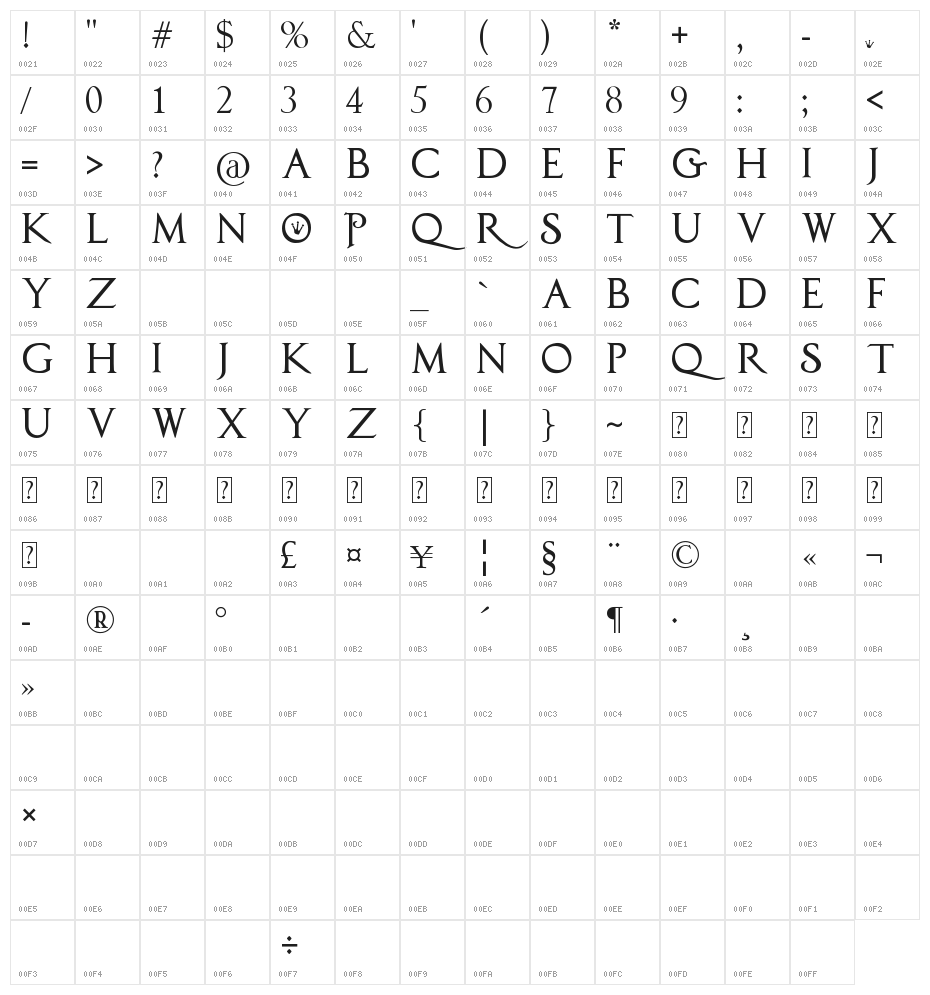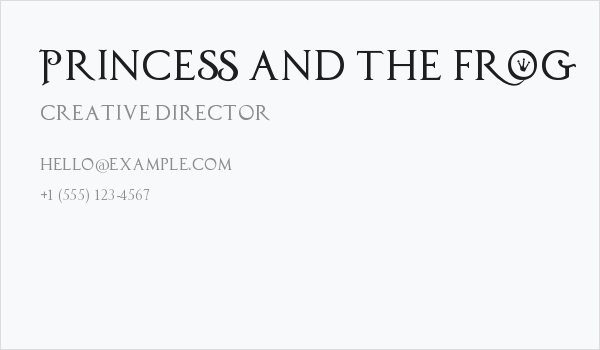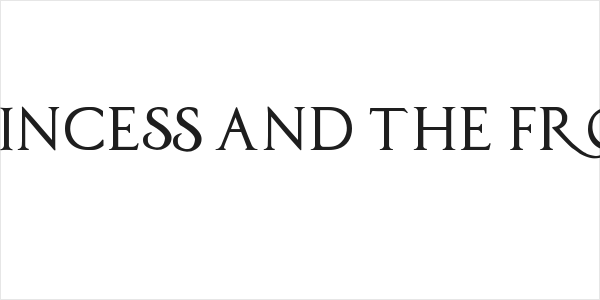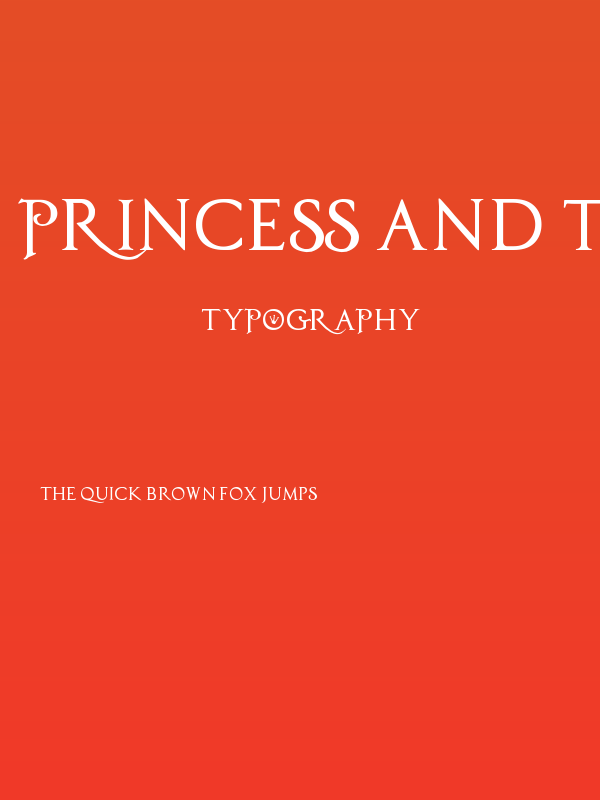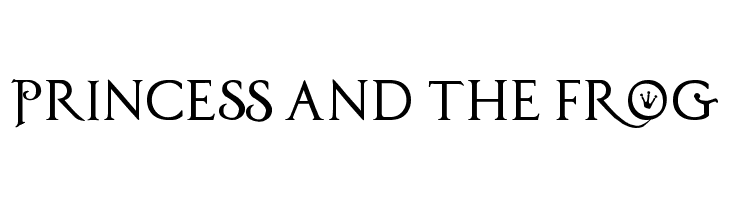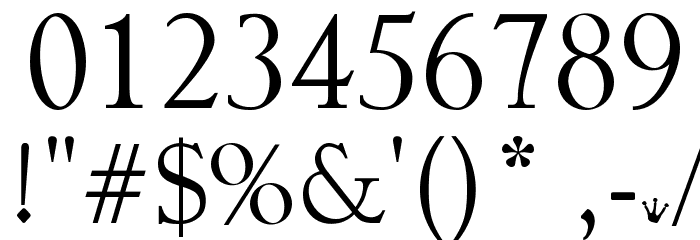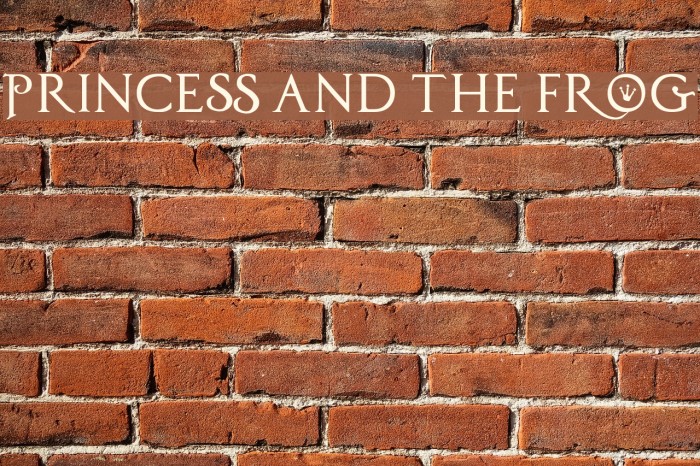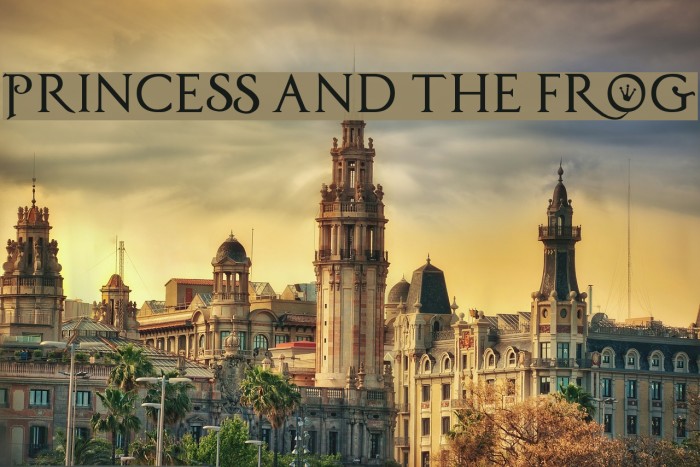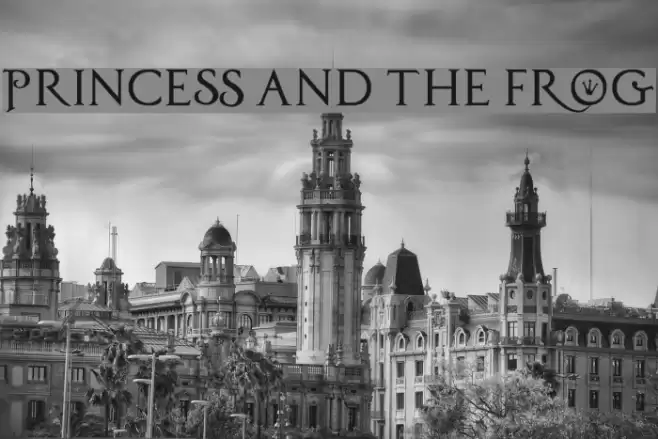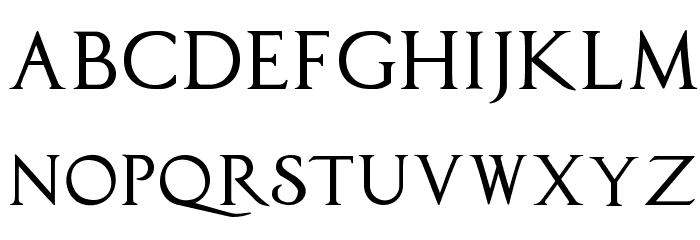
PrincesS AND THE FROG Font
PrincesS AND THE FROG Description
This font features a classic serif style with elegant and sophisticated letterforms. The uppercase letters are characterized by their sharp serifs and balanced proportions, giving a sense of tradition and formality. The lowercase letters maintain a consistent style, with smooth curves and a refined appearance. The numerals are clear and legible, matching the overall aesthetic of the typeface. Special characters are thoughtfully designed, integrating seamlessly with the rest of the font. The unique swashes on certain letters add a touch of flair, making it suitable for decorative purposes.
| Categories | Serif |
| Overall Style | Classic |
| Use Case | Headlines, Logos, Invitations |
| Proposed Projects | Ideal for wedding invitations, luxury branding, editorial design, and formal event programs. |